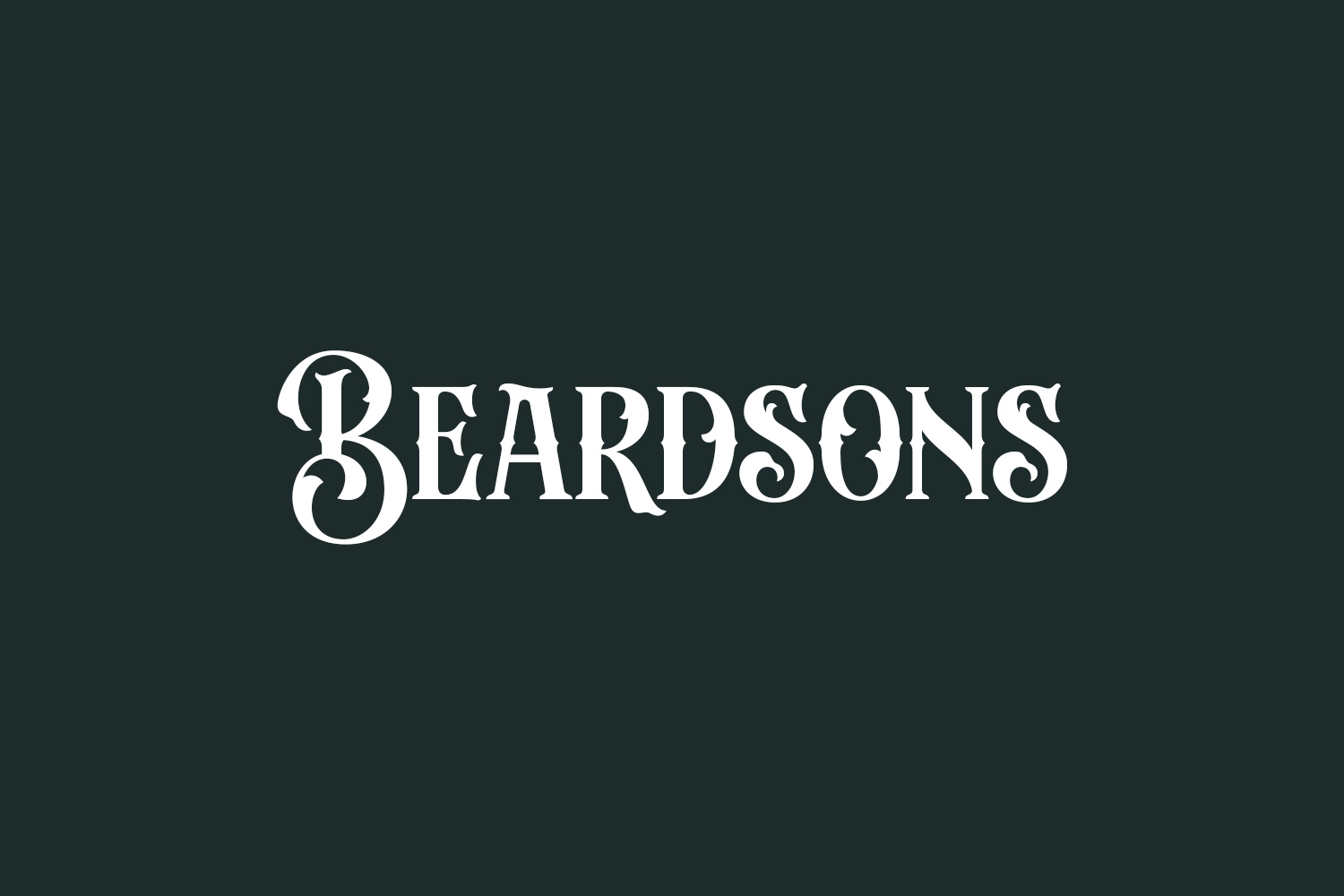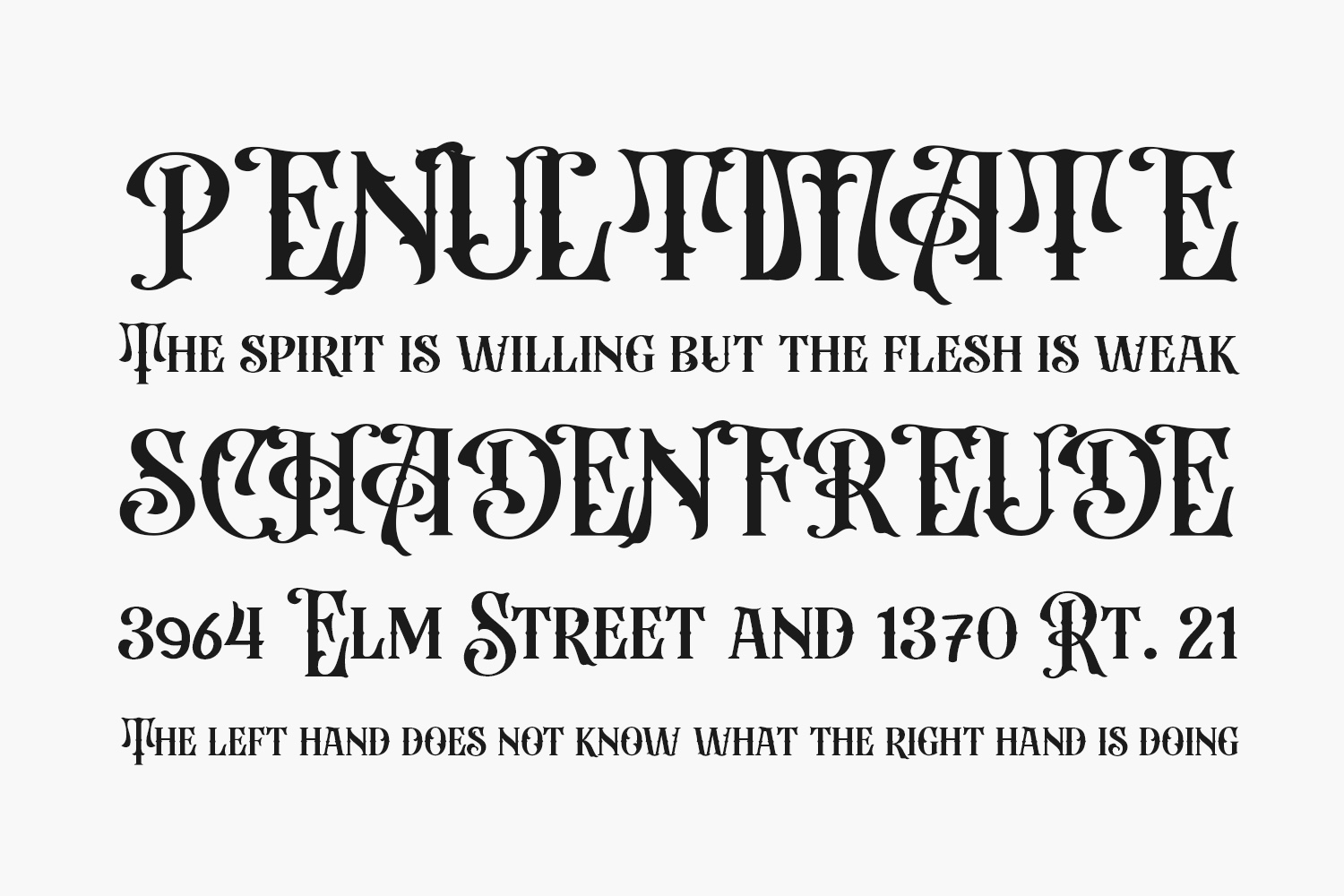
Beardsons Free Font is a unique blackletter font. Get inspired by its vintage feel and use it to create outstanding designs. Beardsons Free Font was designed by Arterfak Project and is free for personal use only. Please purchase the full version for commercial use.